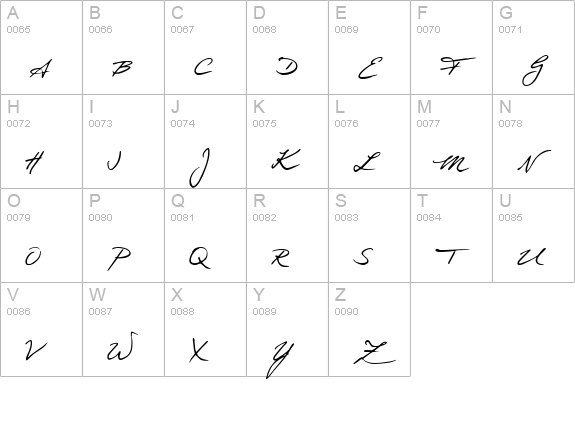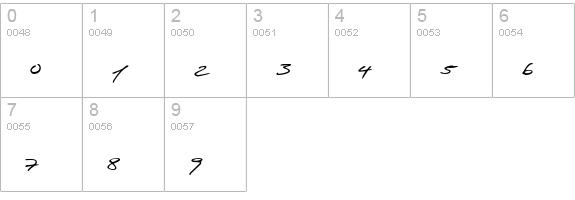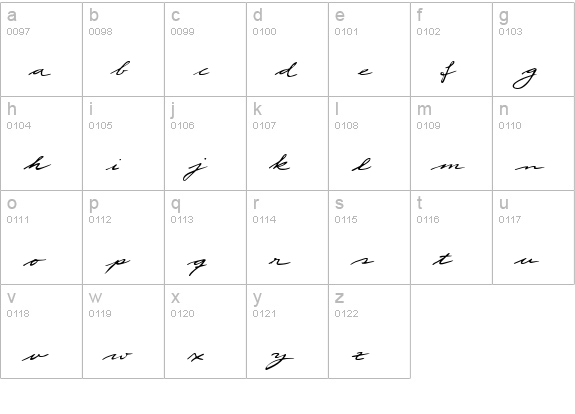
Introducing Scribble font, a creative and whimsical typeface that exudes a playful charm perfect for adding a touch of personality to your projects. This font features hand-drawn elements that give it a unique and artistic flair, making it ideal for designs that call for a fun and casual look. The irregular lines and quirky shapes of Scribble font create a sense of spontaneity and creativity, making it a versatile choice for a wide range of design applications. Best of all, Scribble font is available for free download at FontsMarket.com, making it easily accessible to all designers looking to add a touch of creativity to their work. Whether you're working on a poster, greeting card, logo, or any other design project, Scribble font is sure to bring a fun and lighthearted vibe that will captivate your audience. Download Scribble font today and let your creativity run wild!